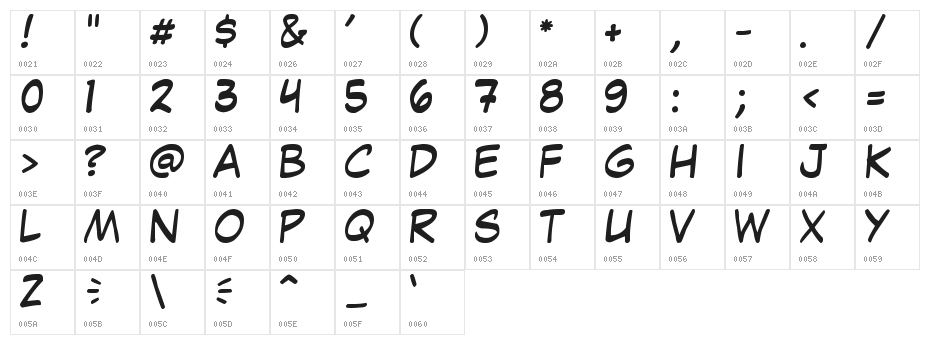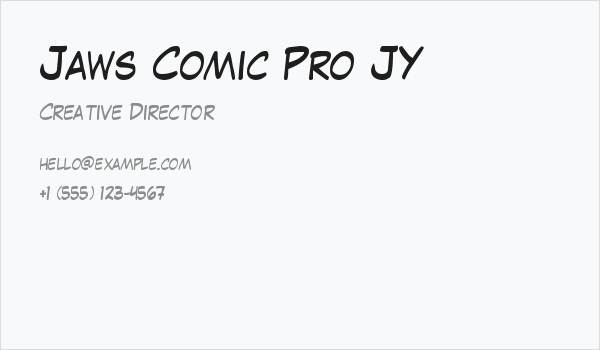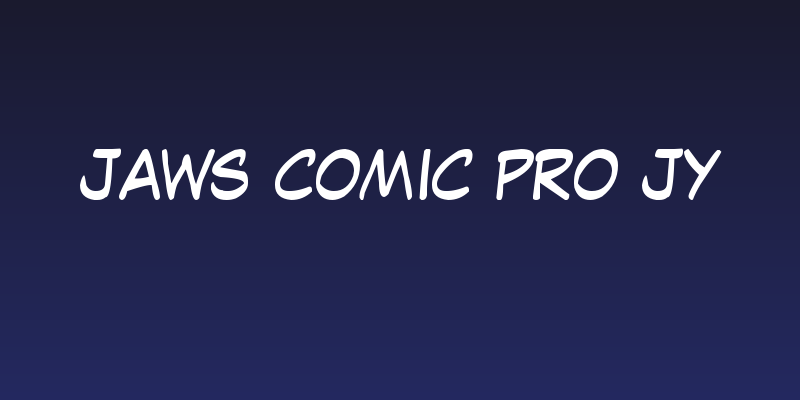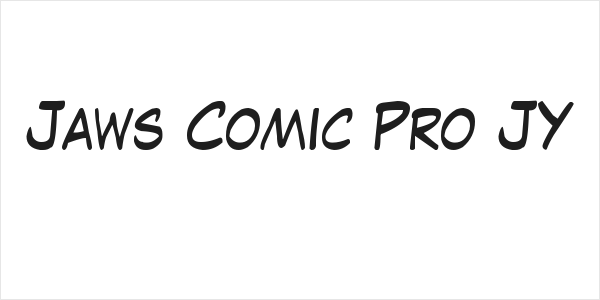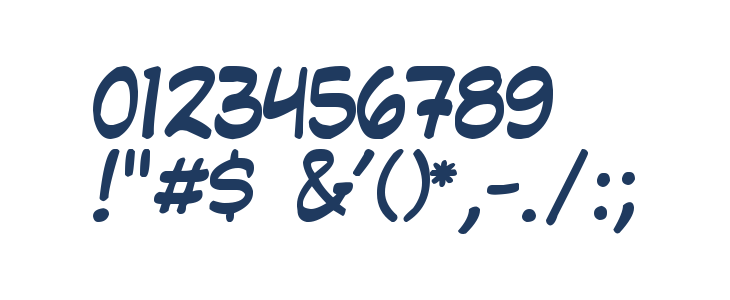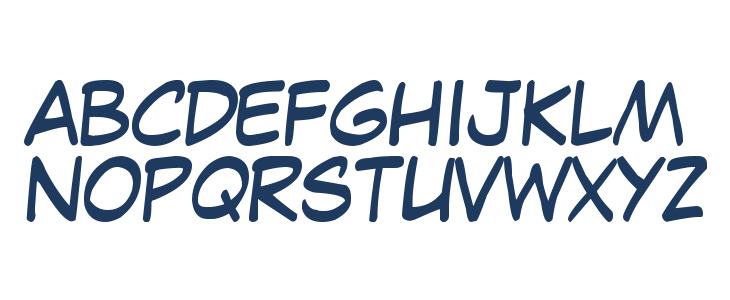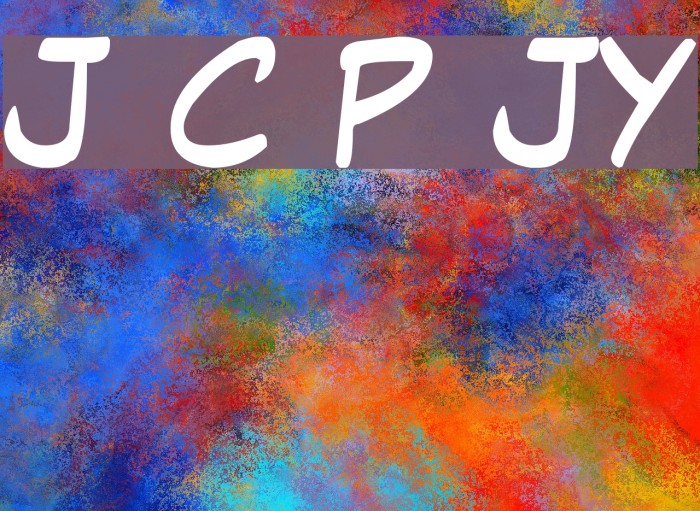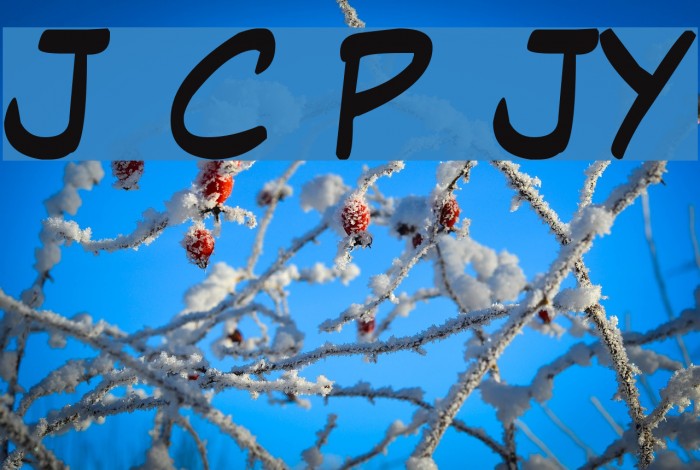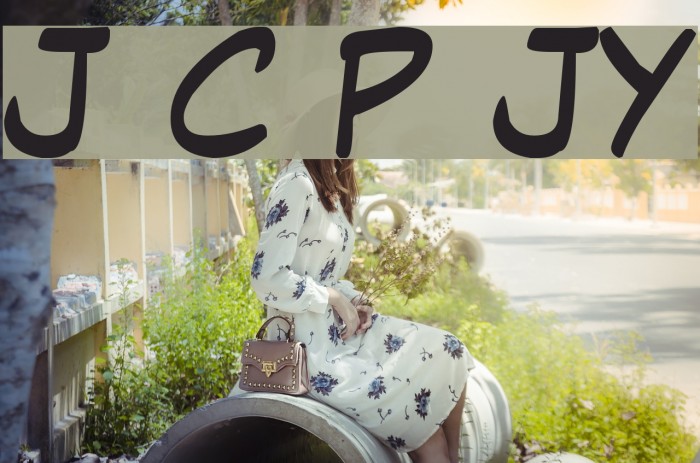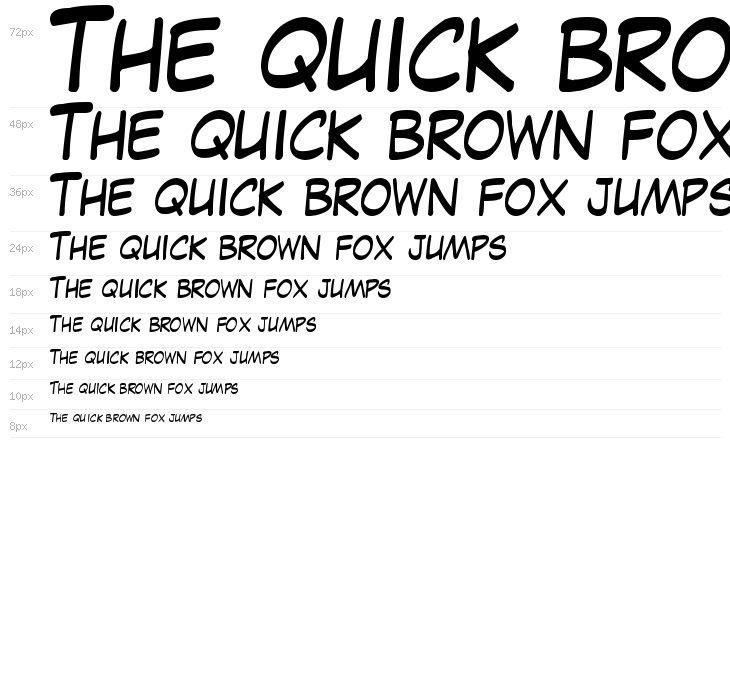
Jaws Comic Pro JY Font
Jaws Comic Pro JY Description
This playful and dynamic font features a handwritten style with a casual and friendly appearance. The characters are slightly slanted, giving a sense of movement and energy. The strokes are bold and rounded, contributing to its approachable and informal look. The font maintains consistent stroke thickness throughout, providing a uniform appearance. The spacing between characters is normal, ensuring readability while maintaining its lively character. This font is ideal for projects that require a fun and engaging tone, such as children's books, comic strips, or playful branding materials.
| Proposed Projects | Ideal for children's books, comic strips, playful branding, and informal invitations. |